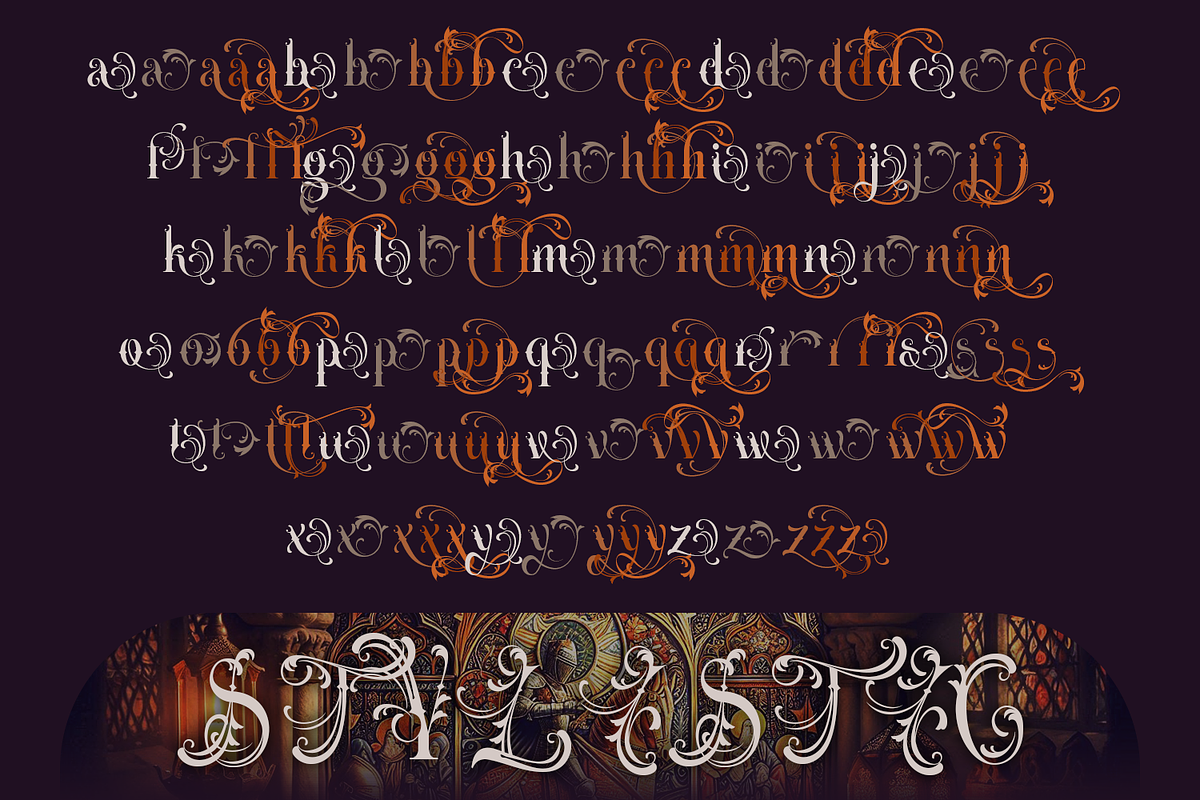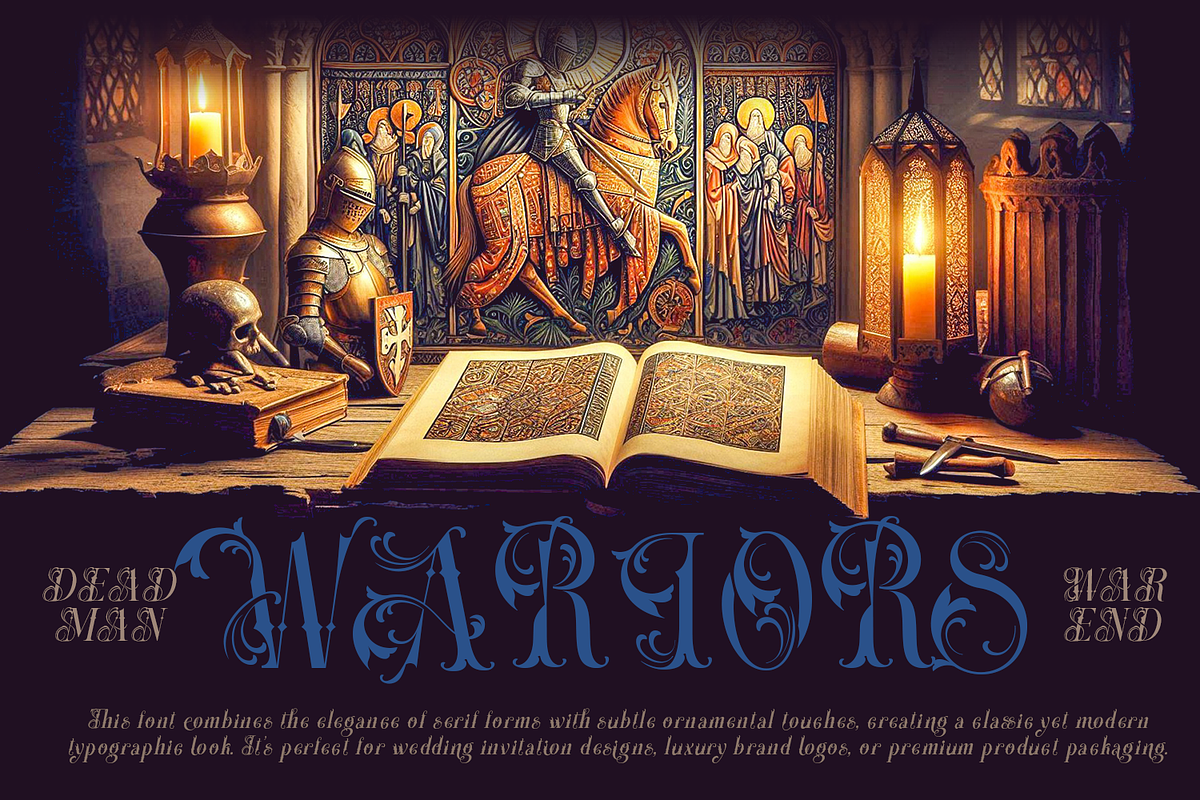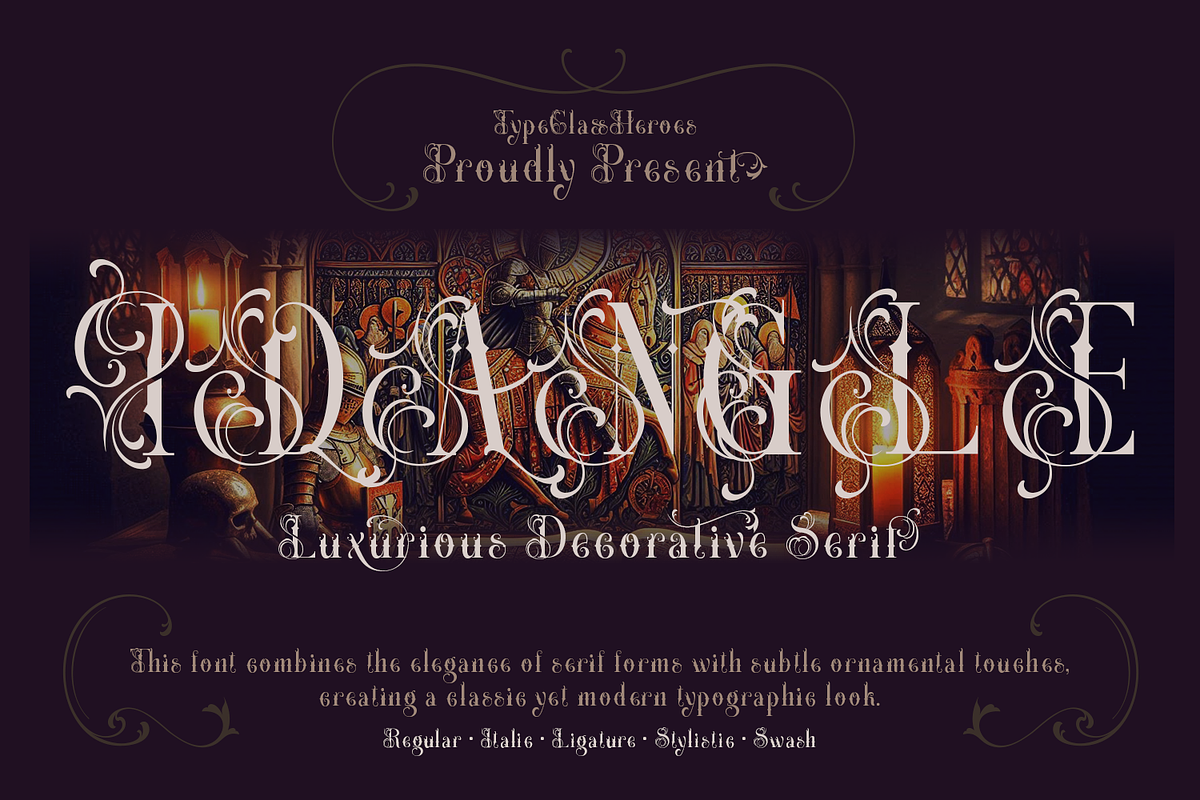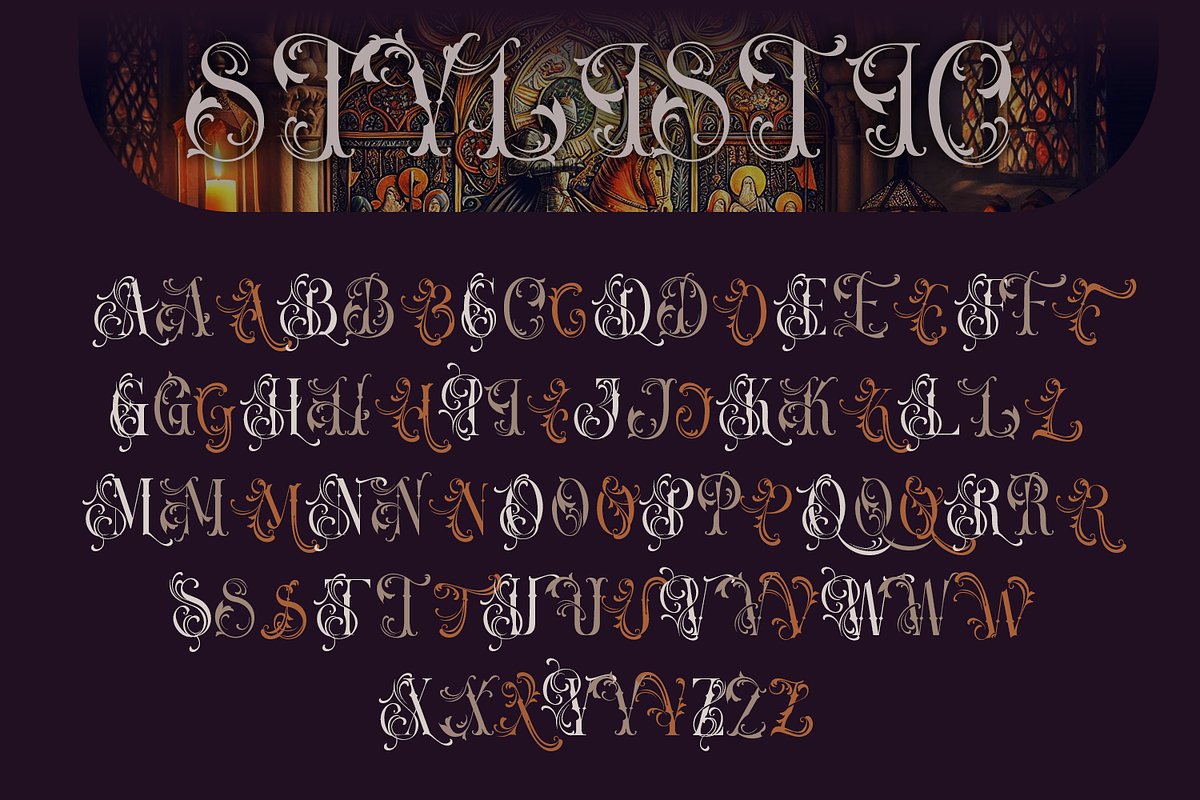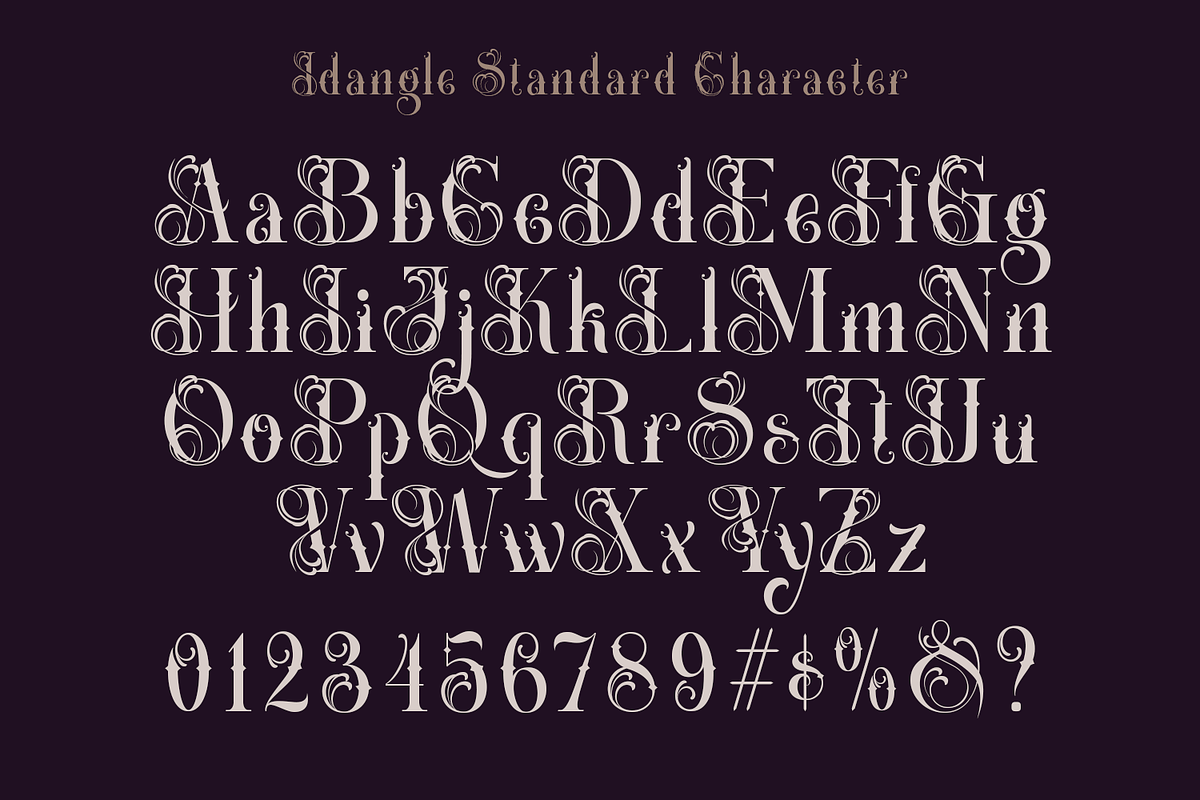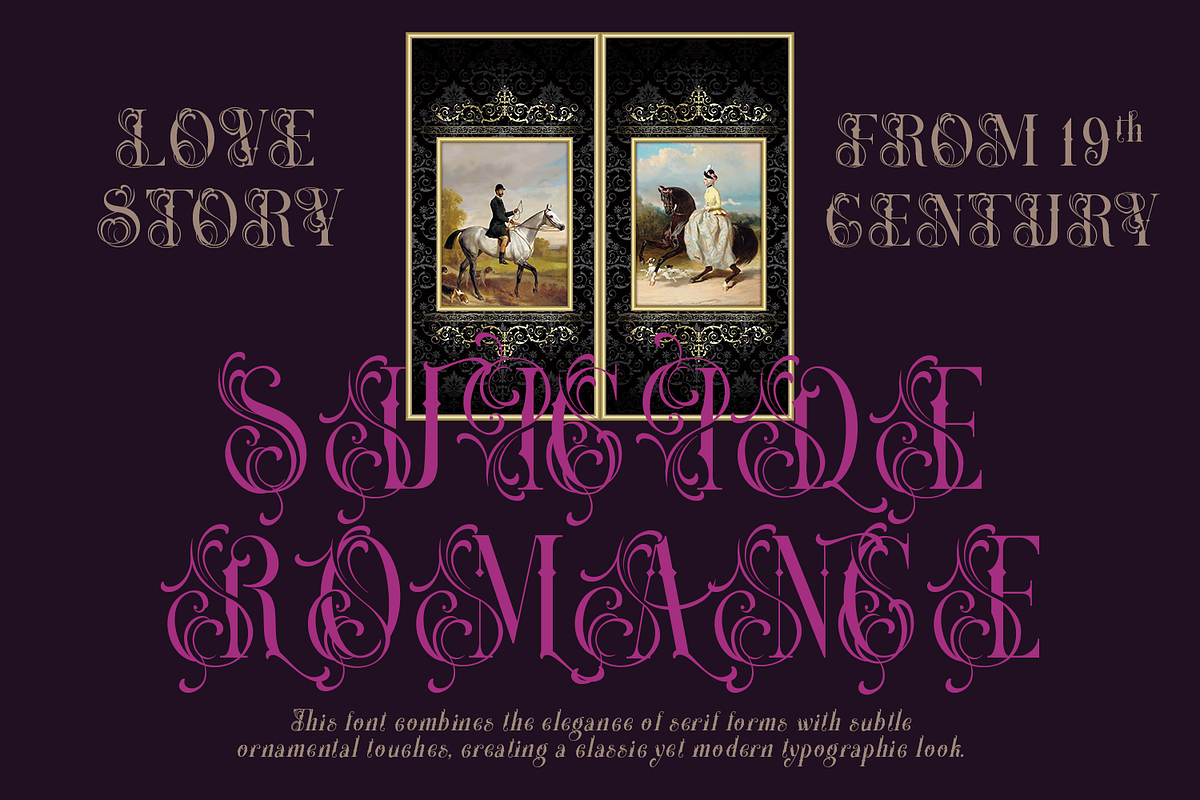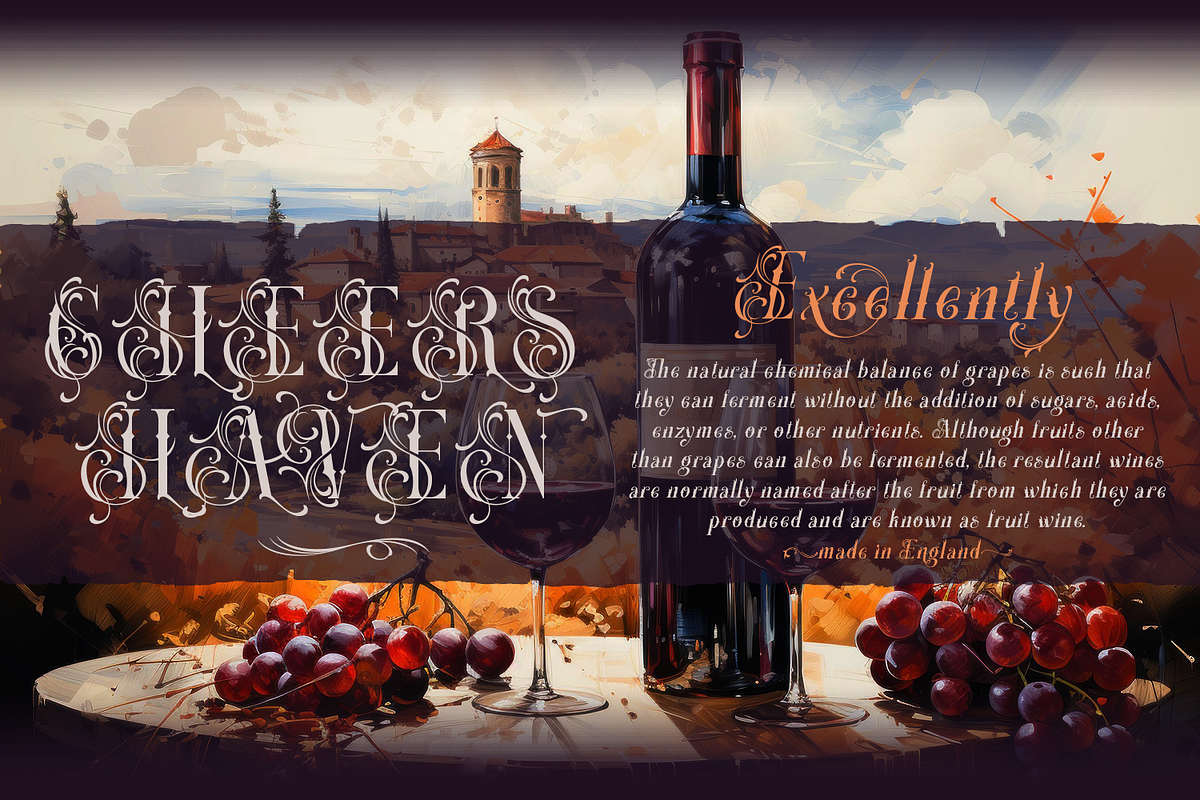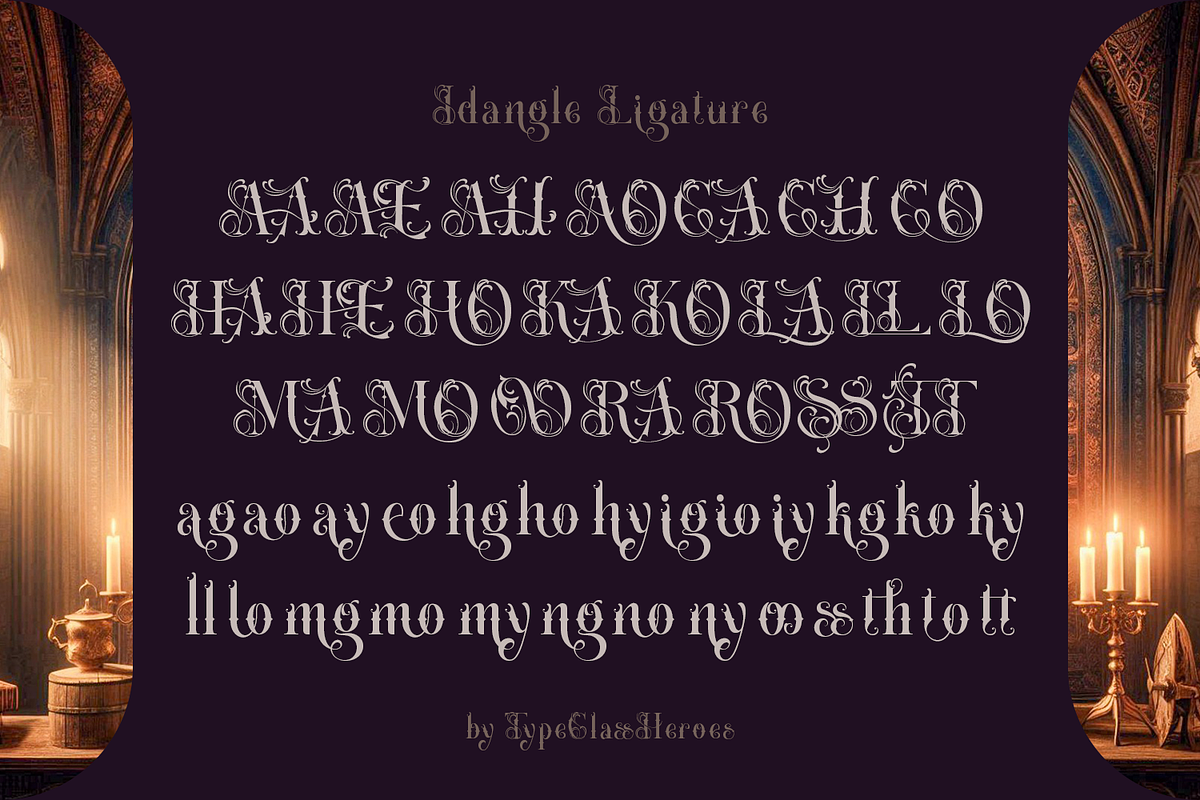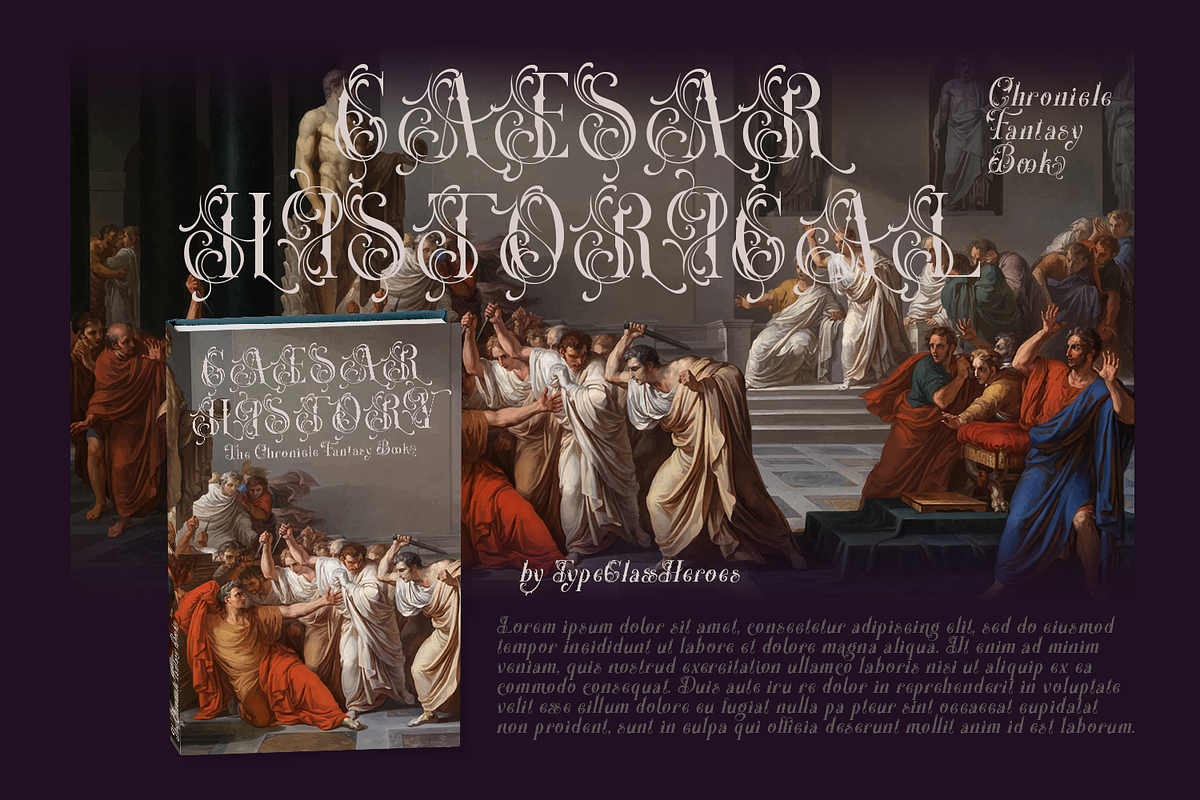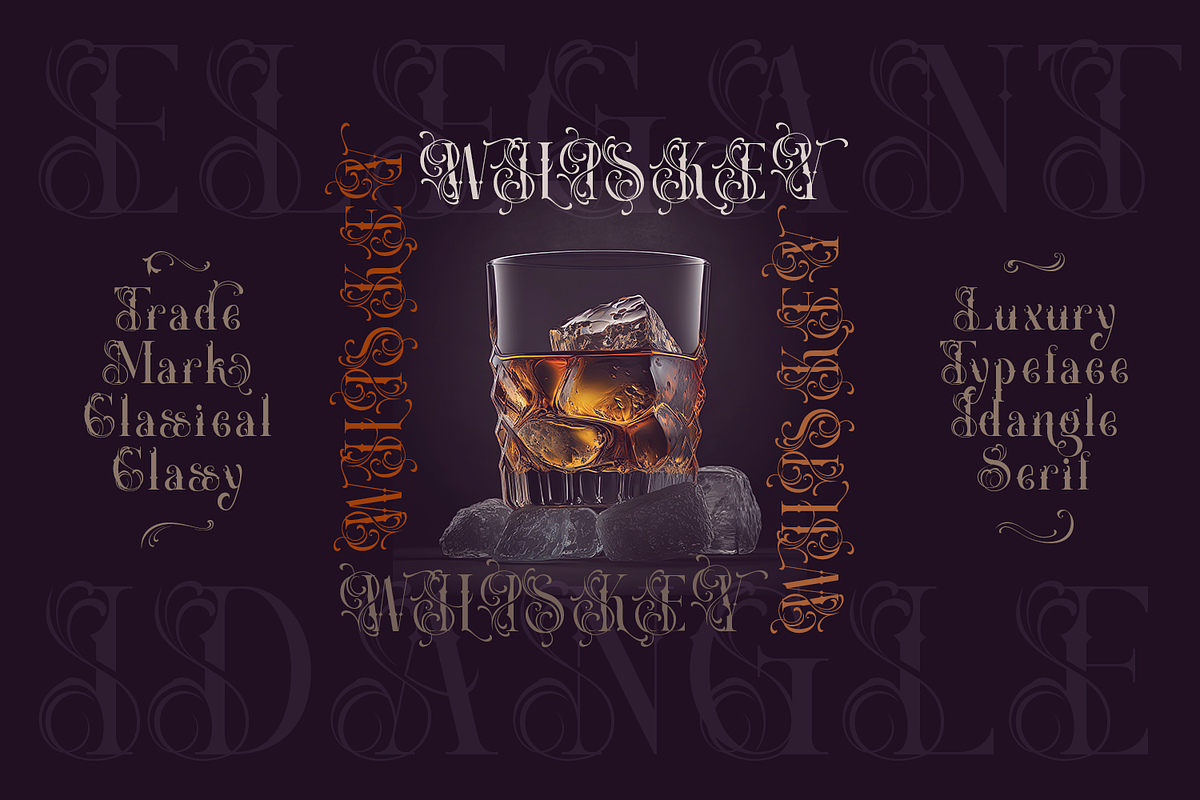
Idangle -Decorative Serif
Introducing Idangle - Decorative Serif, this font combines the elegance of serif forms with subtle ornamental touches, creating a classic yet modern typographic look. The classic style is perfect to be applied in various formal forms such as invitations, labels, restaurant menus, logos, fashion, make up, stationery, novels, magazines, books, greeting / wedding cards, packaging, labels or any type of advertising purpose makes it ideal for whether you’re creating digital content or printed materials.